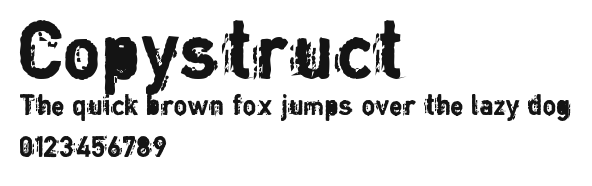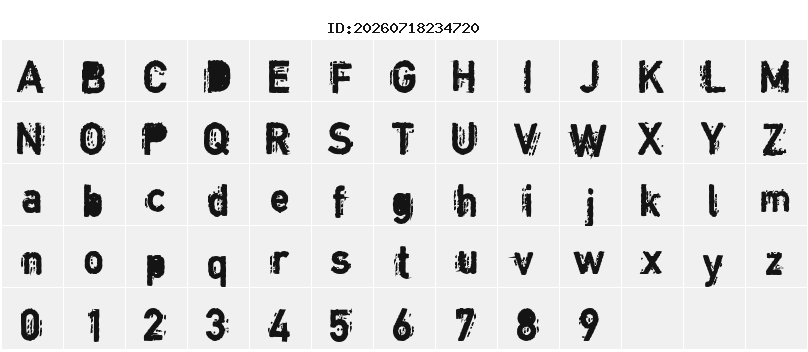
• Font Name: Copystruct
• Font ID: Macromedia Fontographer 4.1.2 Copystruct Bold
• Full Font Name: Copystruct Bold
• Version: Macromedia Fontographer 4.1.2 19.05.1999
• PostScript Name: CopystructBold
• Character Count: 101
About Copystruct.ttf
Copystruct.ttf is a modern, elegant sans-serif font designed for ultimate readability and visual harmony. Perfect for branding, headlines, web design, and print materials.